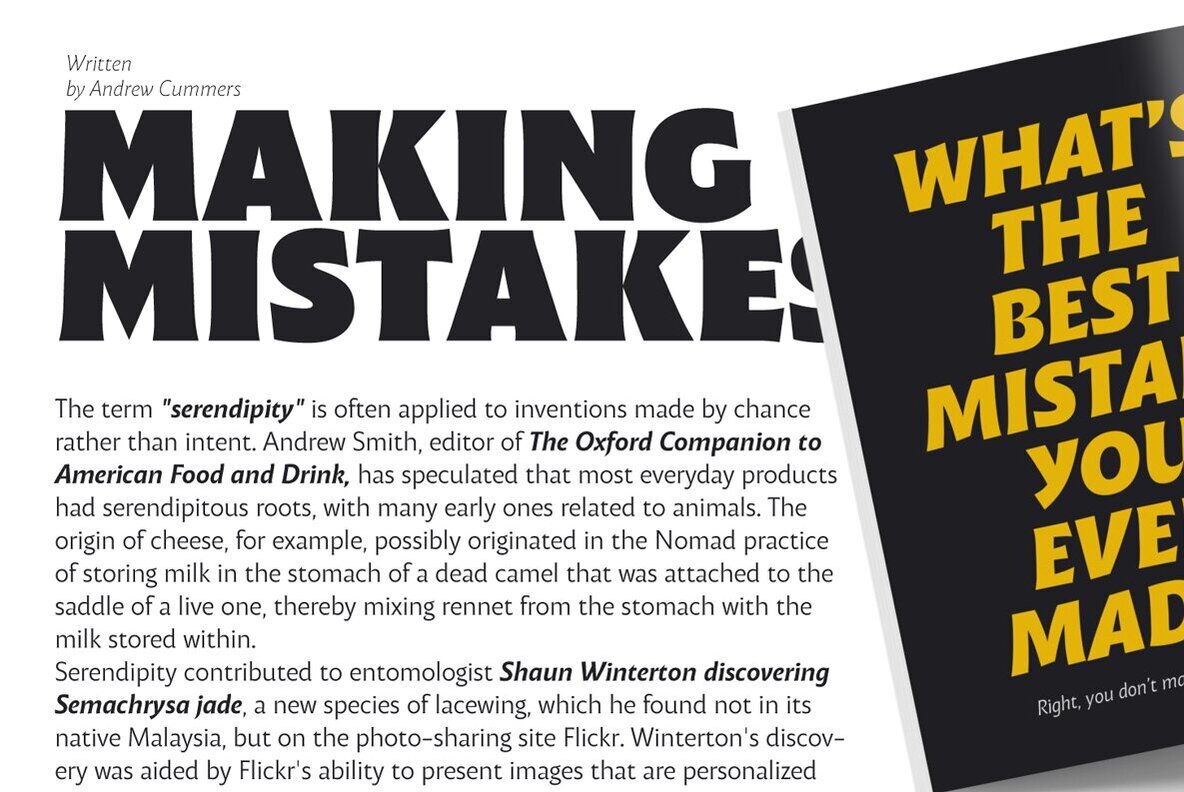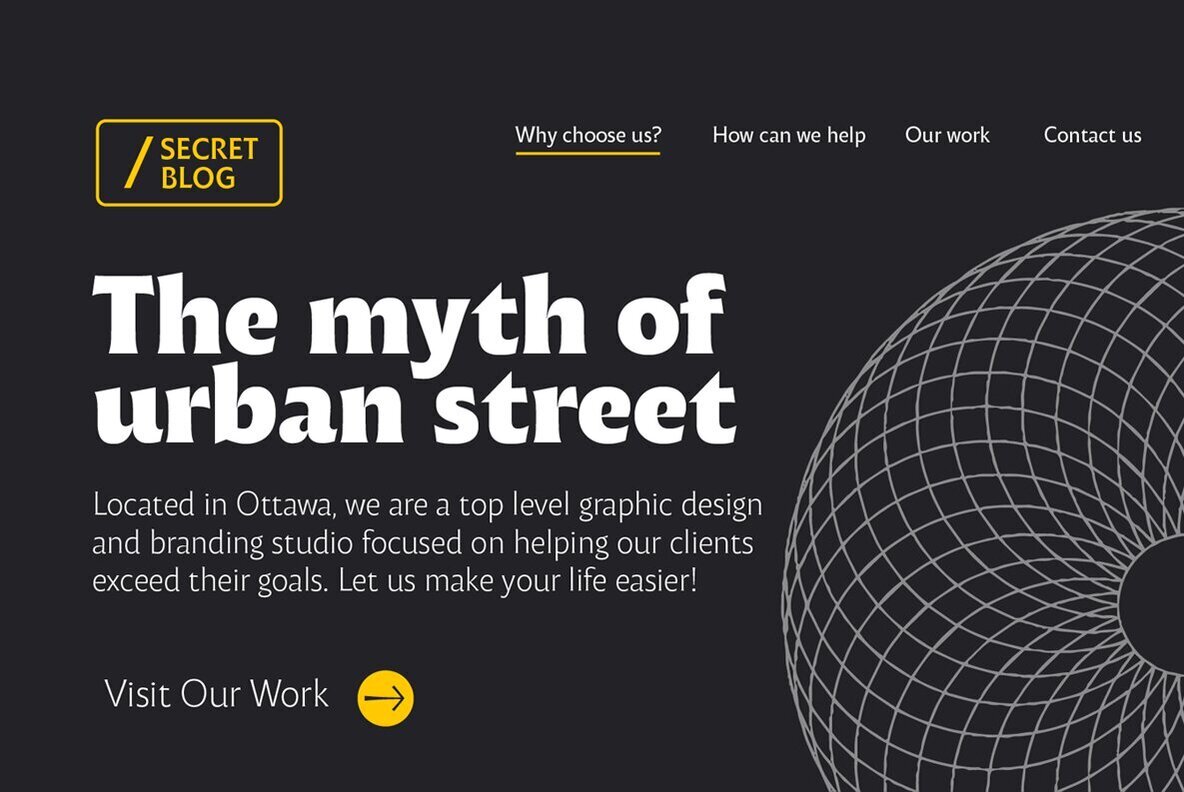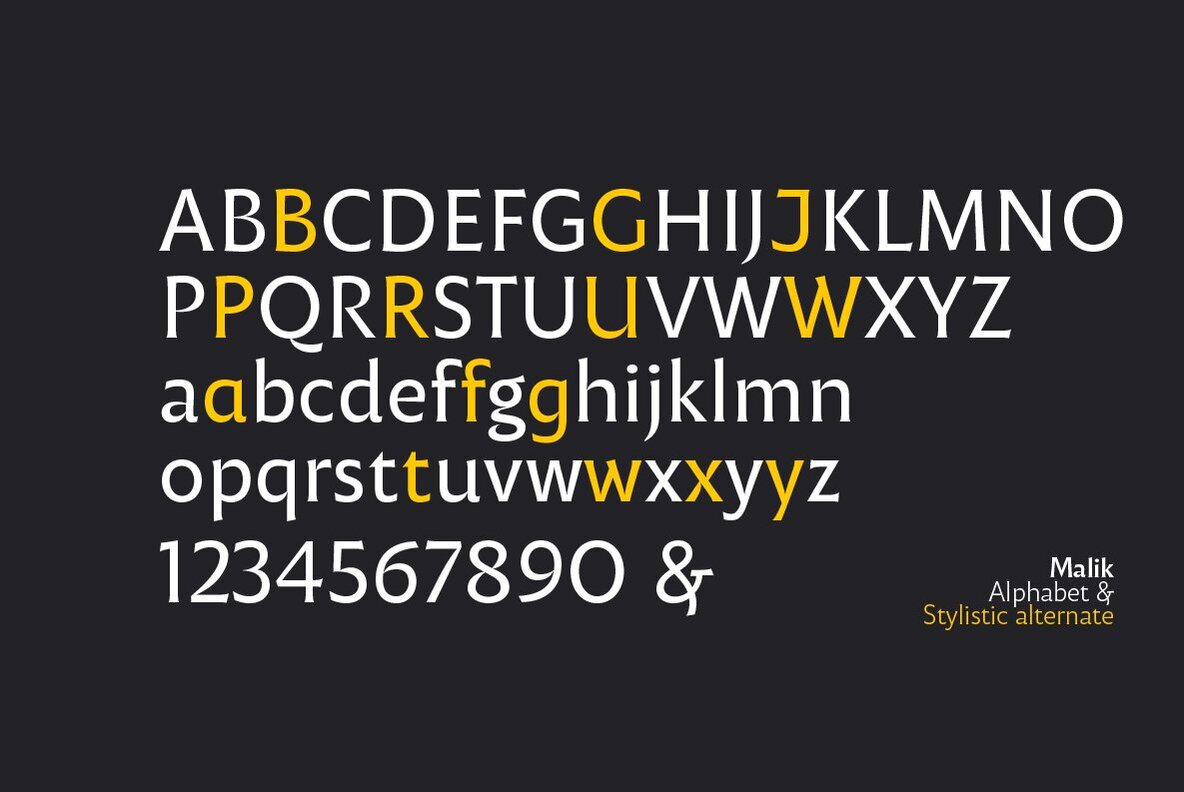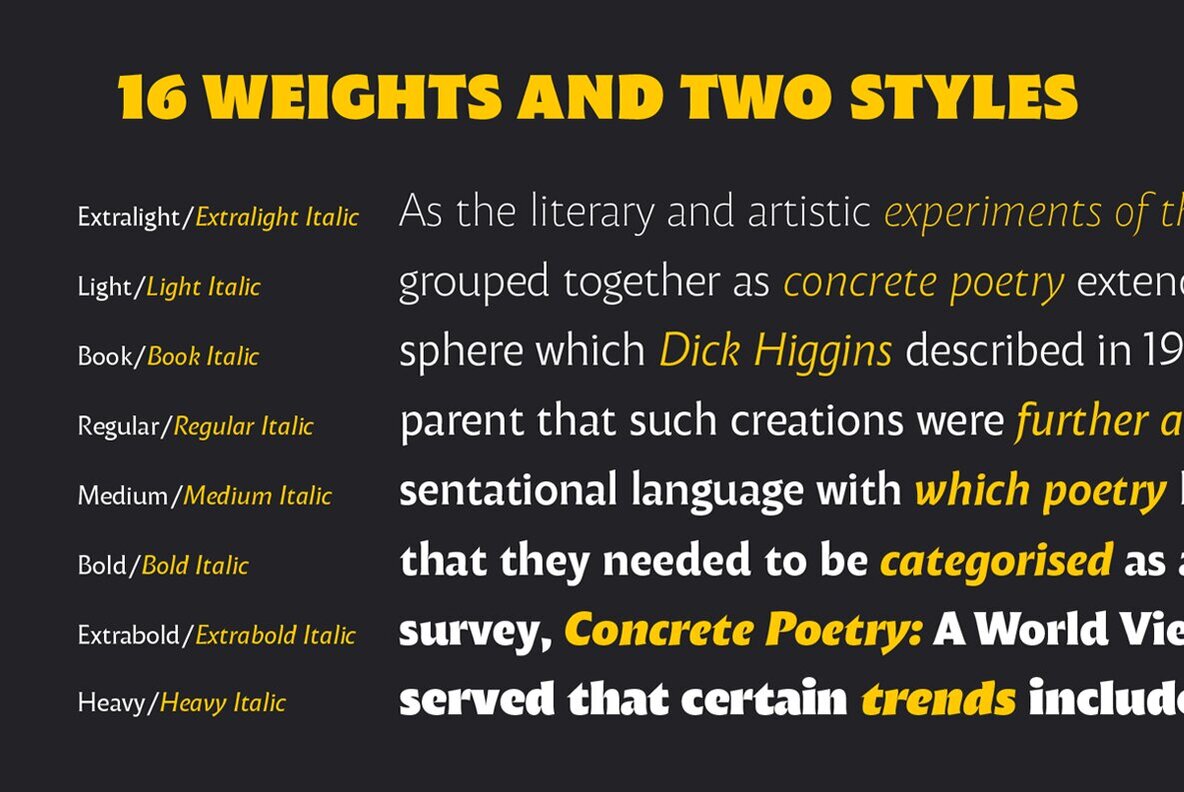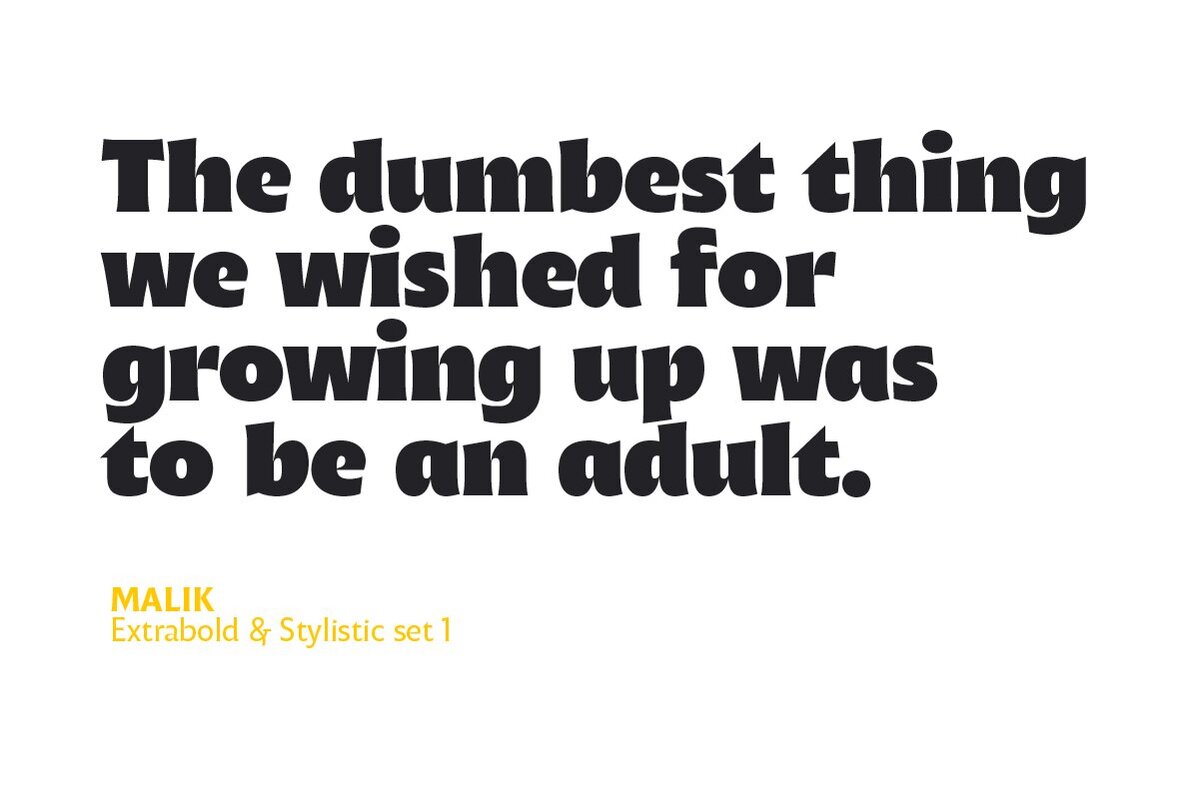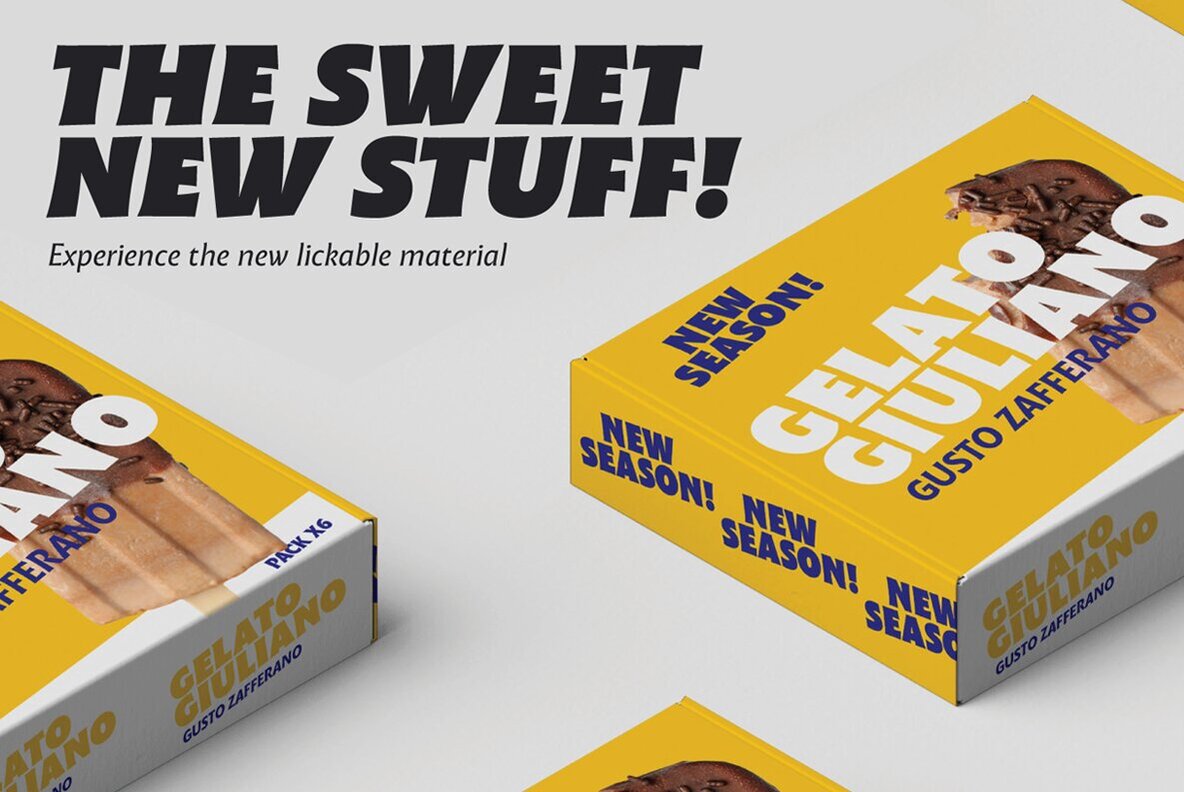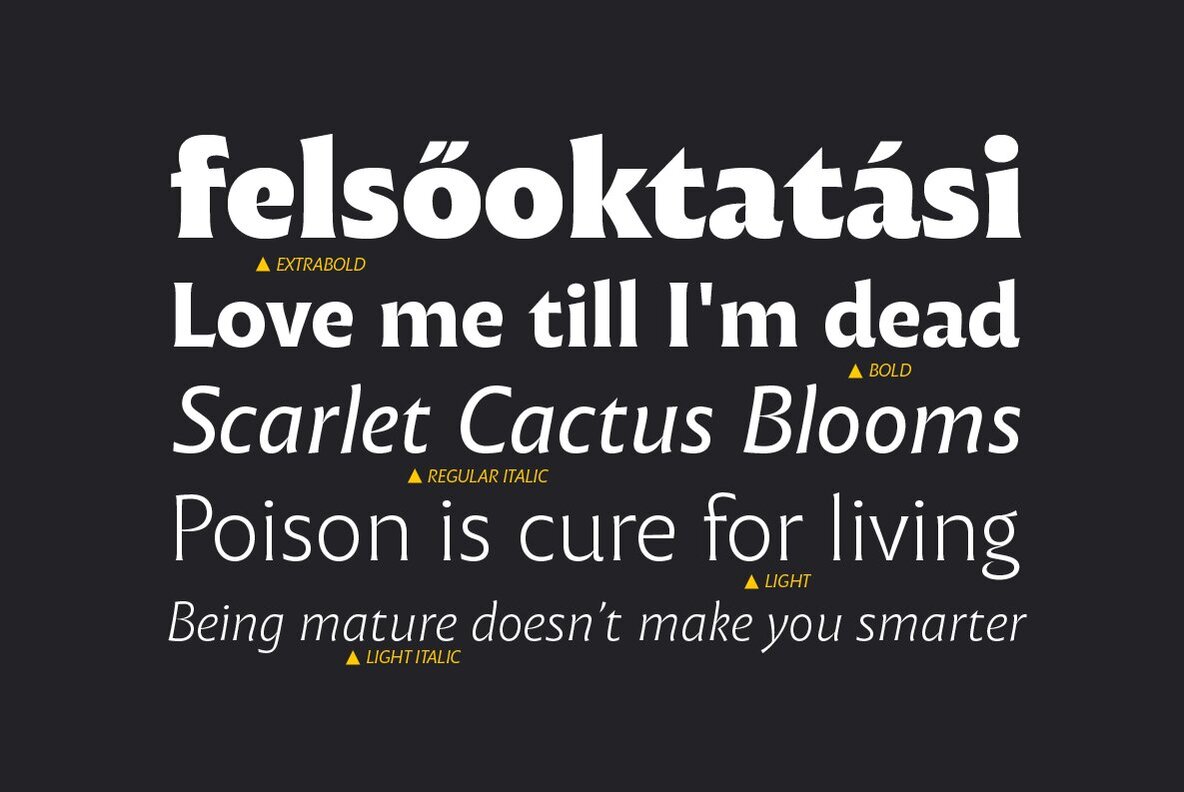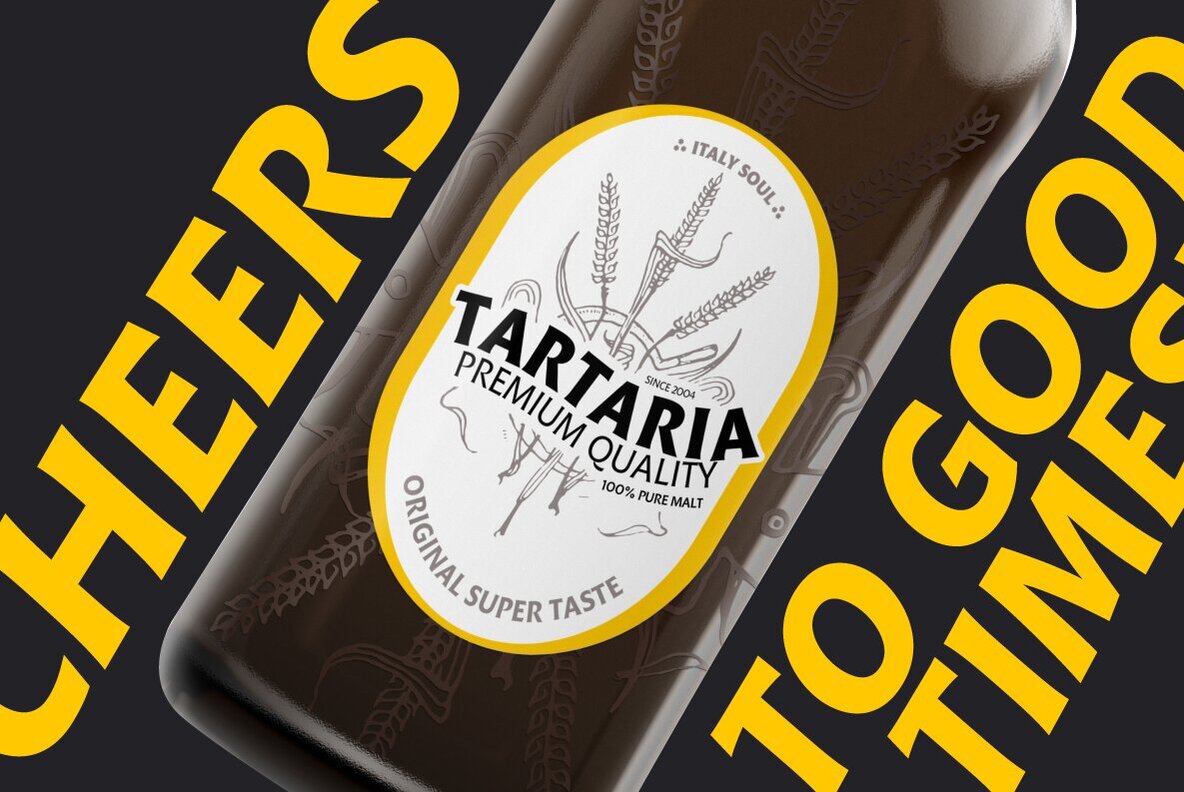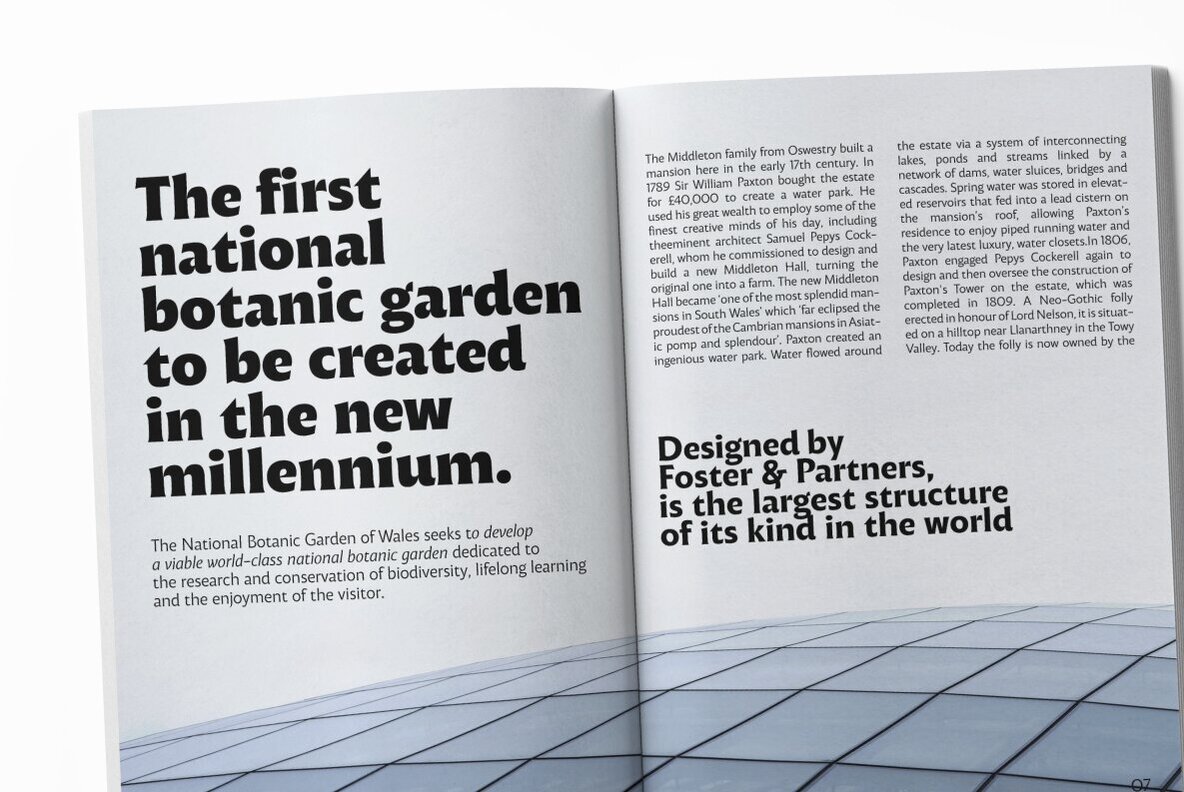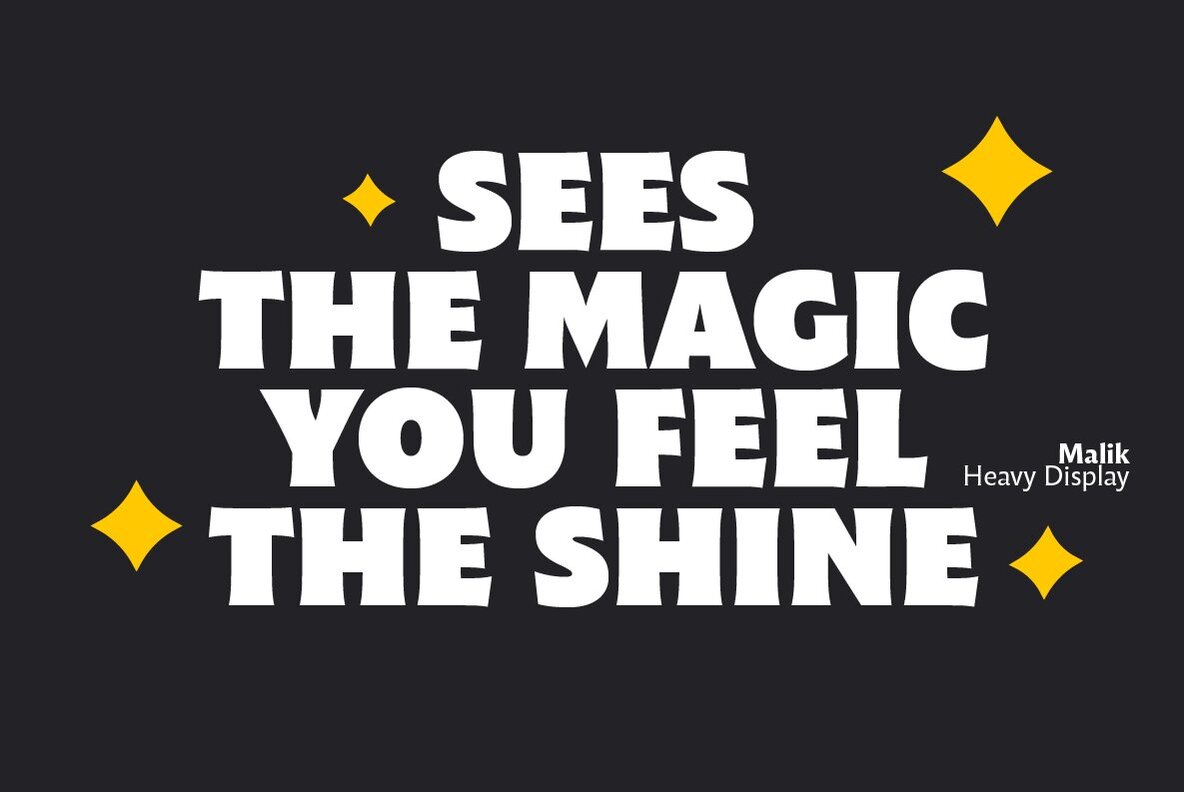
Malik Font
Taking its name from the arabic word for "king", Malik is a flared sans serif typeface family designed in 2020 by Andrea Tartarelli. The designer wanted to find a way to bridge the classical letterforms of Roman Old Style typefaces with the readability of contemporary sans typefaces. This was achieved by using the so-called flared serif that emerges gradually from the stem of the letter, ending in a sharp angle. It's something that also reminds of the peculiar shapes of the Simoncini Method, invented by italian type designer Francesco Simoncini to get a sharper definition of letterforms. To this blend of classical elegance and modernist expertise, Malik adds the calligraphic influence of modern masters like Frederic Goudy or Ed Benguiat, visible in signature details like the reverse contrast uppercase B, or the calligraphic lowercase k.
Malik also means "owner", and this font surely wants to rule the page. It manages to be extremely readable when used in body text size, but looks surprising and expressive in display use. The inclusion of the Malik Heavy Display weight, with its black texture balanced by deep inktraps, allows for striking logo design. The weight range of the family is extremely wide, including a Book alternative to the Regular weight for fine-tuning readability, a range of light display weights and a solid choice of bold weights for branding, all coming with matching true italics. The 16 cuts of Malik have been equipped with all the features you need to solve your editorial and design challenges, including a wide language coverage (thanks to over one thousand latin and cyrillic characters) and a complete set of open type features (including small capitals, positional numbers, case sensitive forms). Alternate characters and stylistic sets allow you to fine-tune your editorial and branding design by choosing variant letter shapes.
Malik is the typeface for everyone who wants to design like a king...or like he doesn't care who the king is!